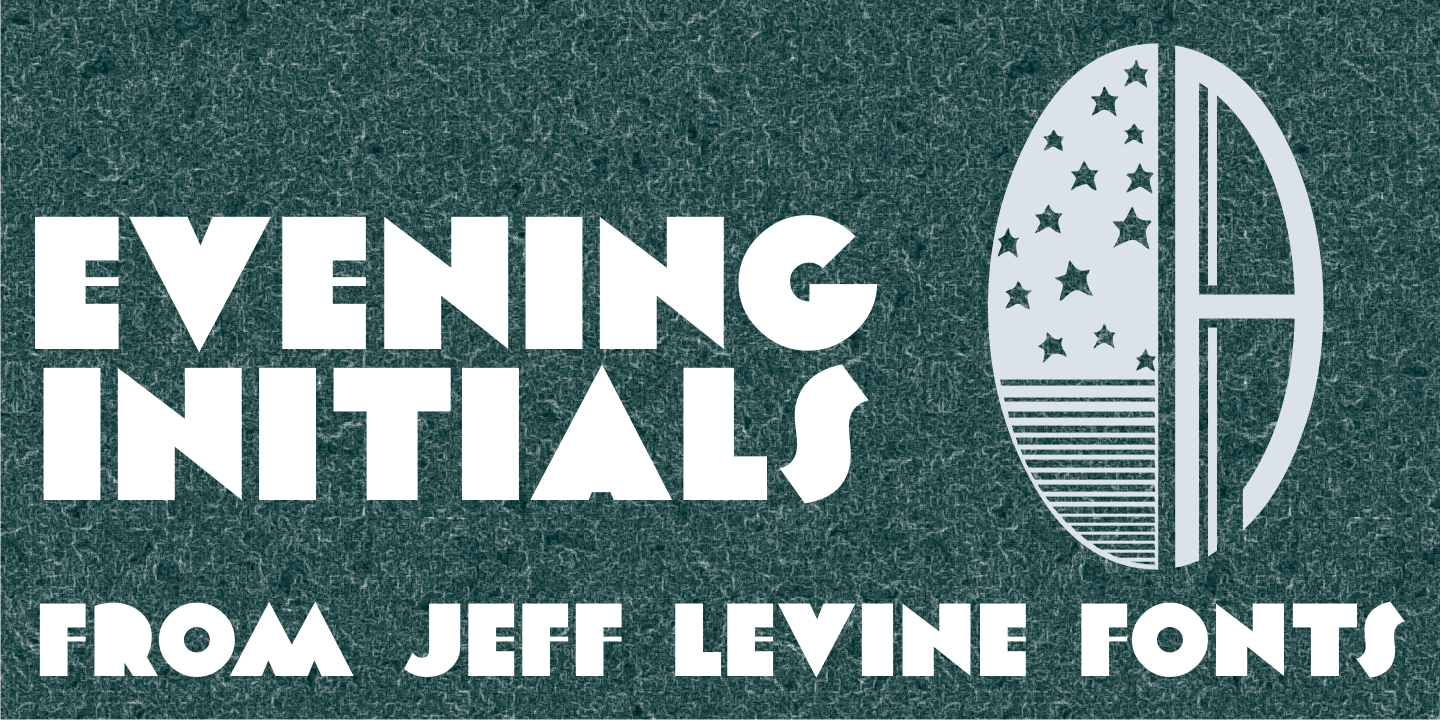
Evening Initials
Evening Initials JNL are based on a few random examples of some unusual Art Deco initials found within the pages of an old Dover clip art book. A complete set of letters was redrawn from scratch and are offered for your creative endeavors as a digital type font.